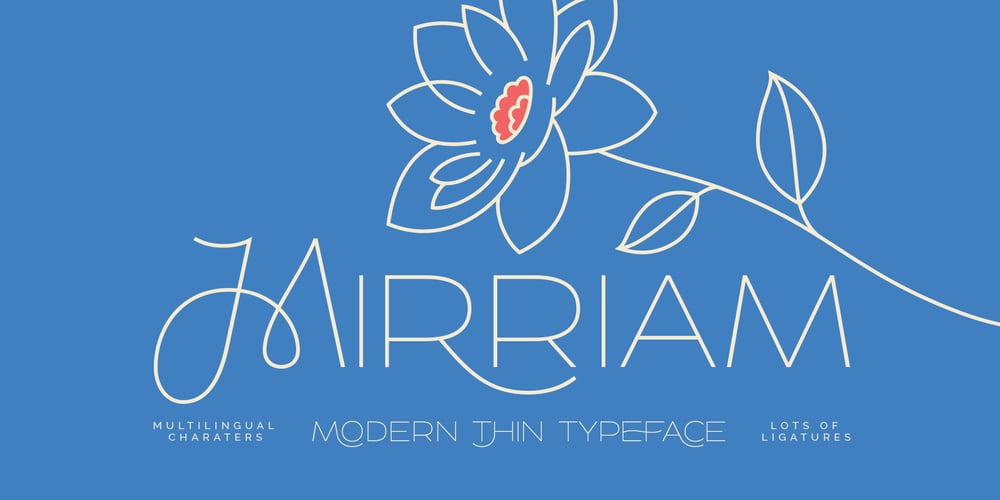
Mirriam
Mirriam font
Mirriam Font Family was designed by Gleb Guralnyk and published by Gleb Guralnyk. Mirriam contains 1 styles and family package options. Hello! Presenting a modern thin font — Mirriam. It’s an elegant typeface with airily light shape. Mirriam is rich on an original ligatures for small letters (all the 69 ligatures you can check on a corresponding screenshot).Please make sure that “Standard Ligatures” feature is supported & enabled in your software. Also this font has multilingual support (check out a screenshot with available letters and signs).Thank you and wish you a peaceful sky!